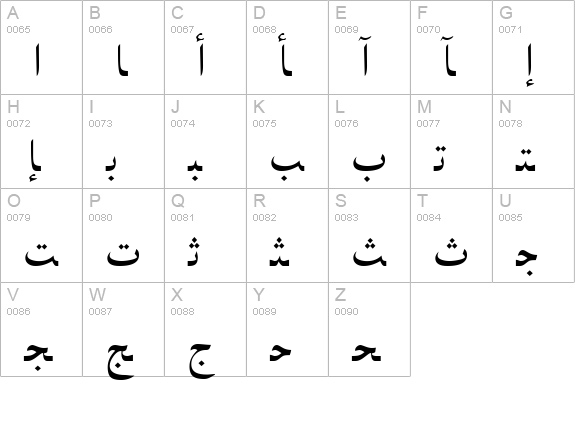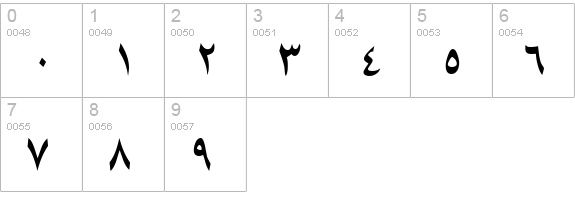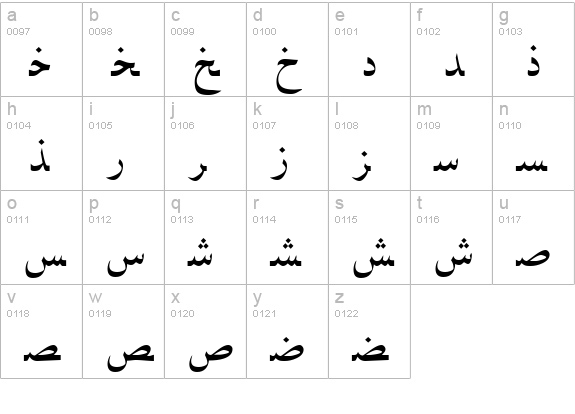
ArabicNaskhSSK Font Details
ArabicNaskhSSK font is a beautifully crafted Arabic script typeface that exudes elegance and sophistication. With its intricate details and smooth curves, this font is perfect for adding a touch of traditional charm to your designs. The graceful strokes and intricate ligatures make ArabicNaskhSSK font a standout choice for various projects, from branding to invitations. The best part about ArabicNaskhSSK font is that it is completely free to download at FontsMarket.com. You can easily access this stunning font and enhance your creative projects with its timeless beauty. Whether you are designing a logo, creating a poster, or crafting a wedding invitation, ArabicNaskhSSK font will elevate your work with its classic appeal. Download this exquisite typeface today and bring a touch of Arabic elegance to your designs.